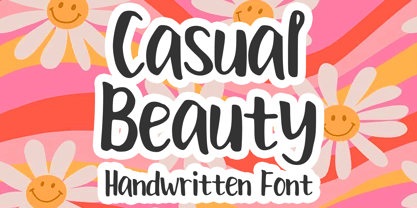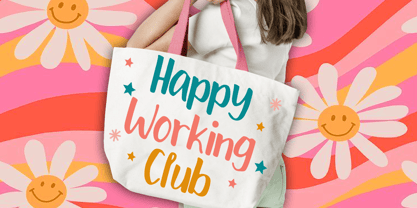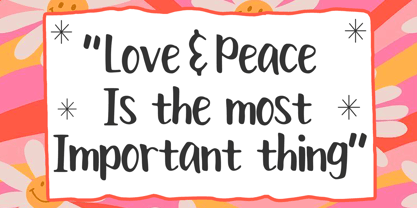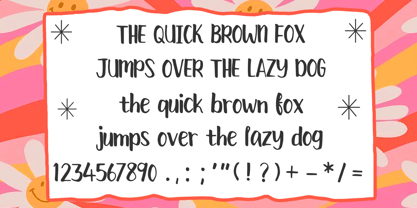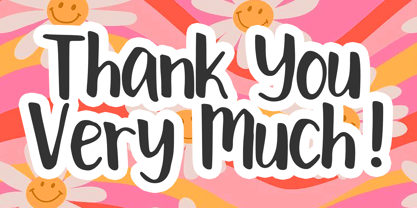
Casual Beauty
by Mvmet
The Casual Beauty Font Family was designed by Gabriel Valentinus and published by Mvmet. Casual Beauty contains 1 styles. More about this family
Casual Beauty is a cute and beautiful display typeface that’s perfect for creating gorgeous headlines and designs with personality. It will elevate a wide range of design projects to the highest level. You can use this font for many design ideas such as stickers, t-shirt designs, amazing logo designs, magazine or book covers, comics, cartoon drawings, and many more. This font will add a super cool touch to your designs!
Designers: Gabriel Valentinus
Foundry: Mvmet